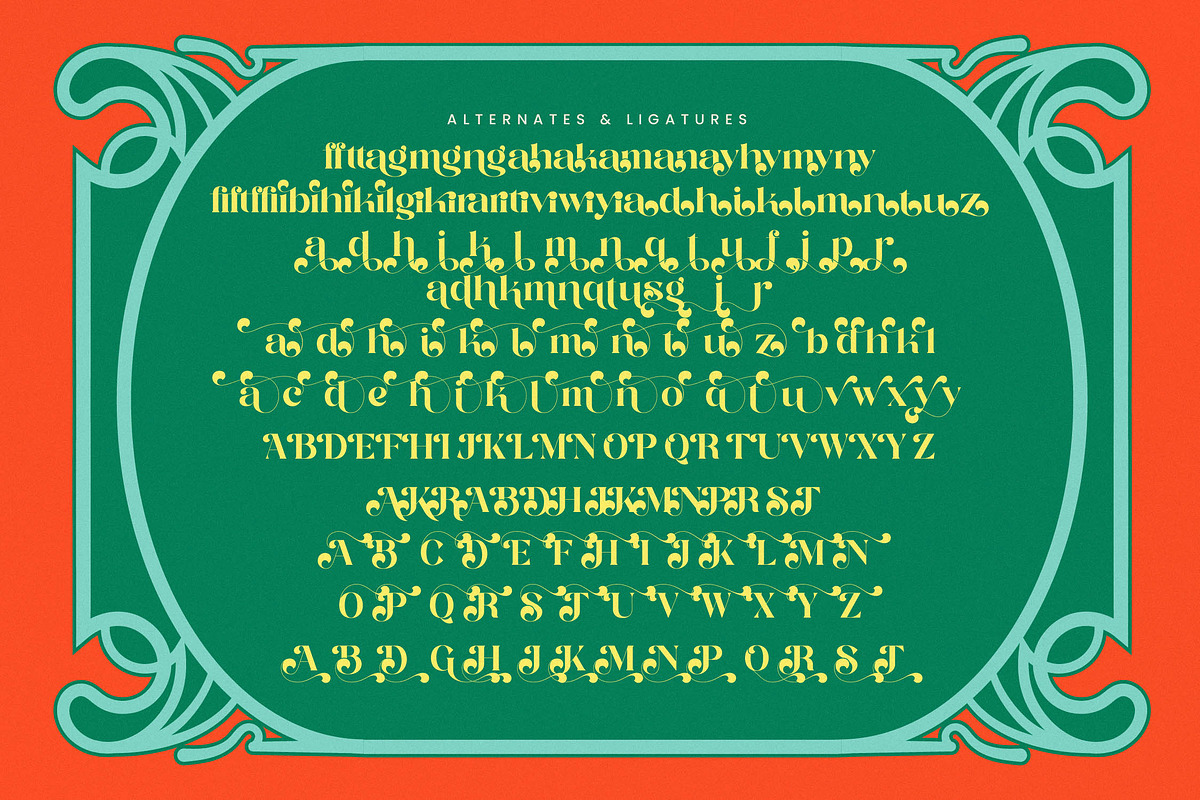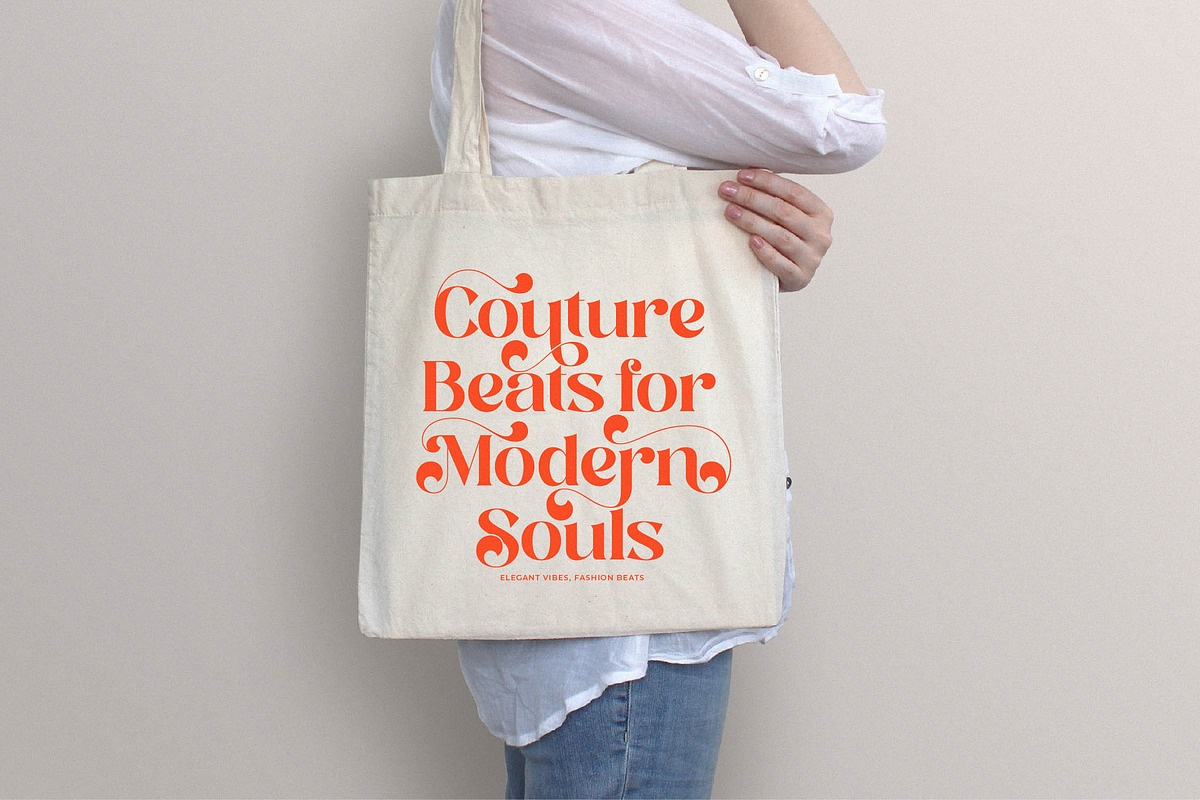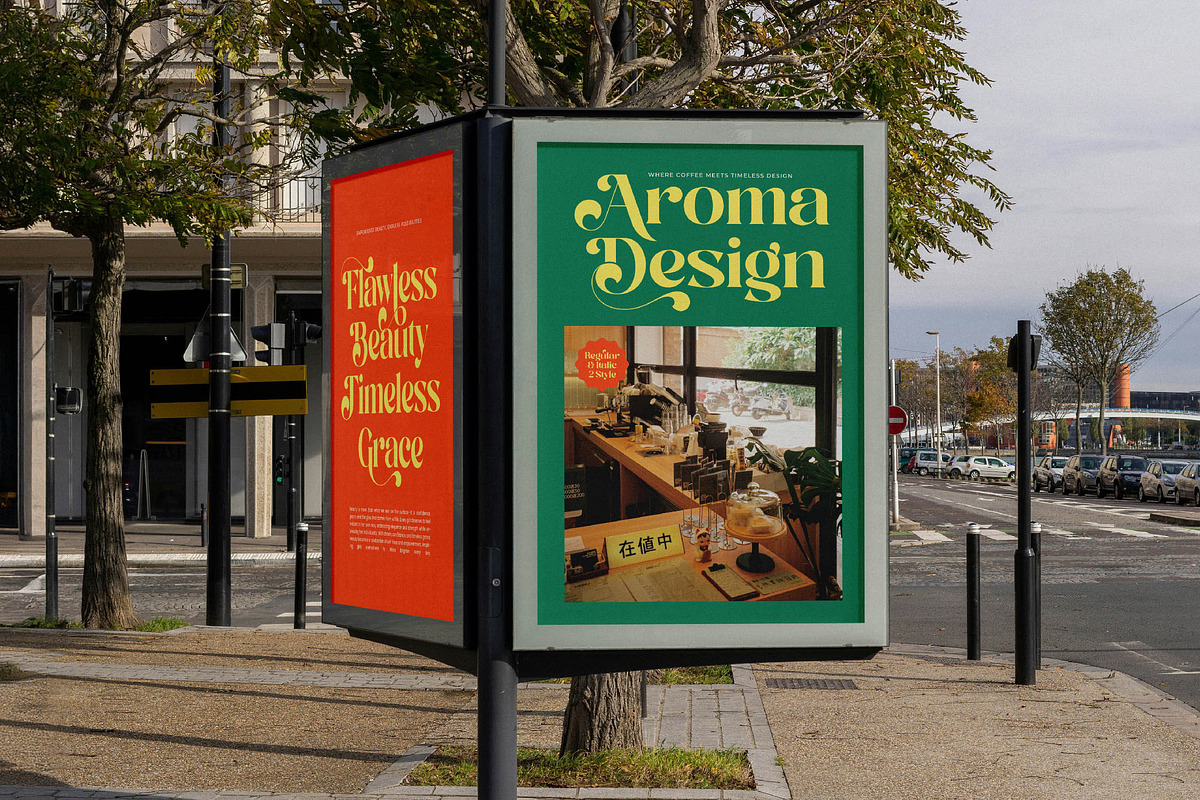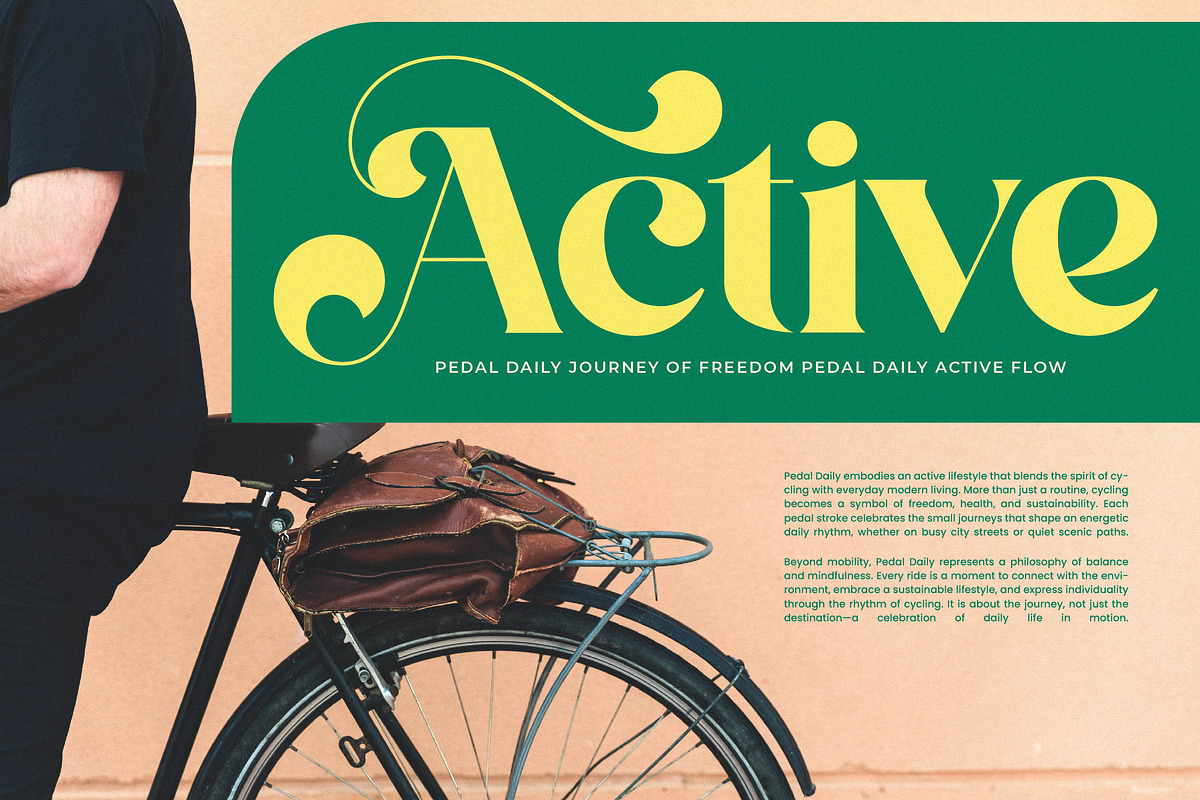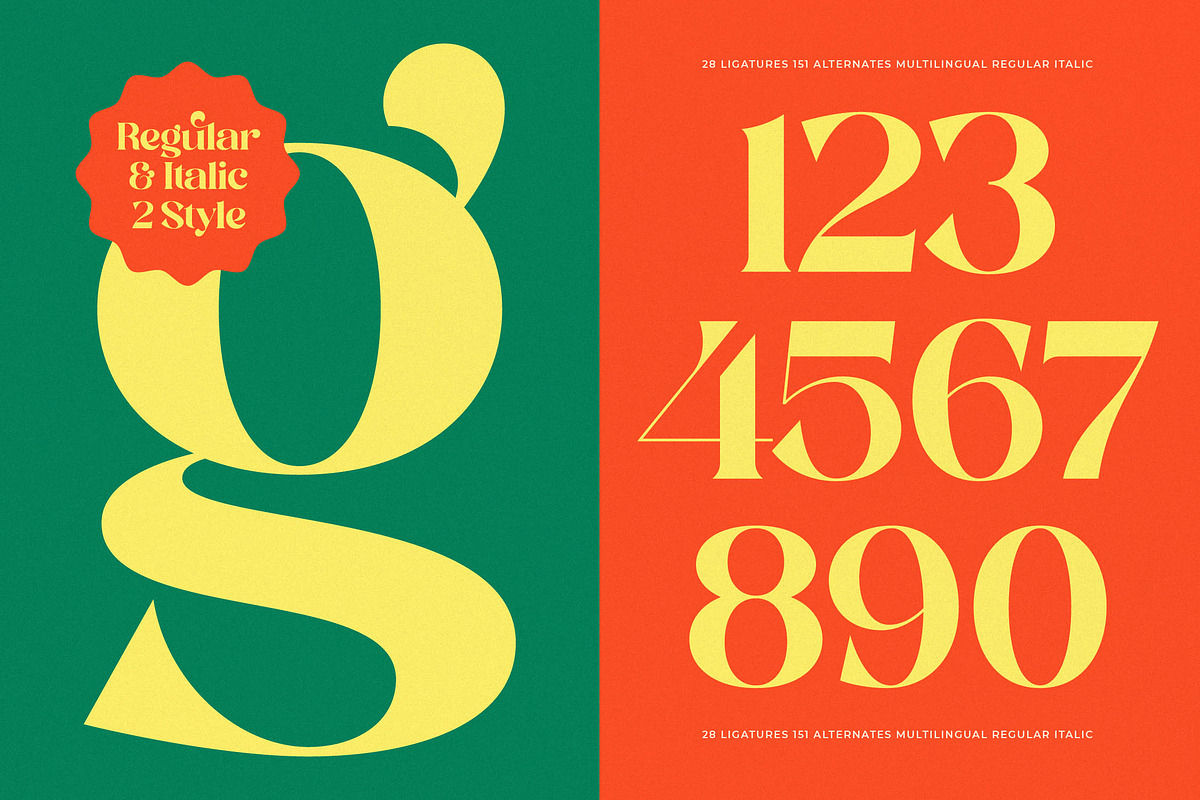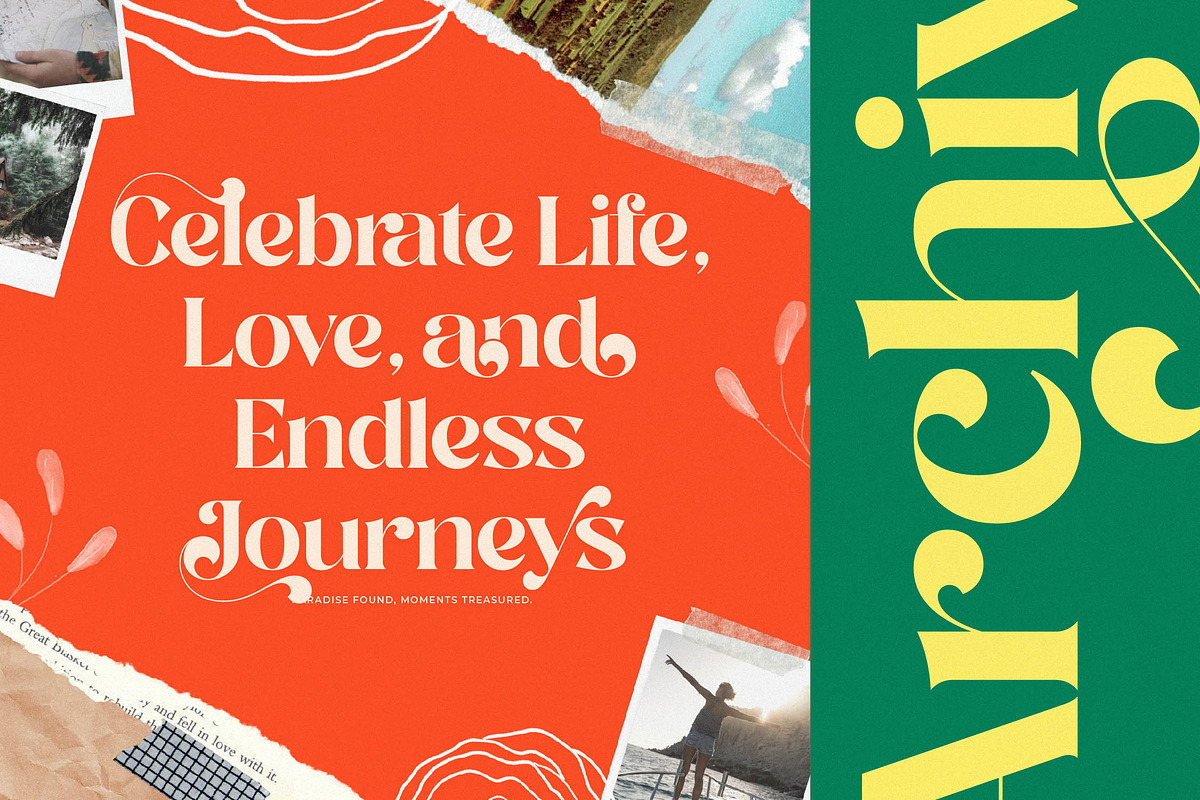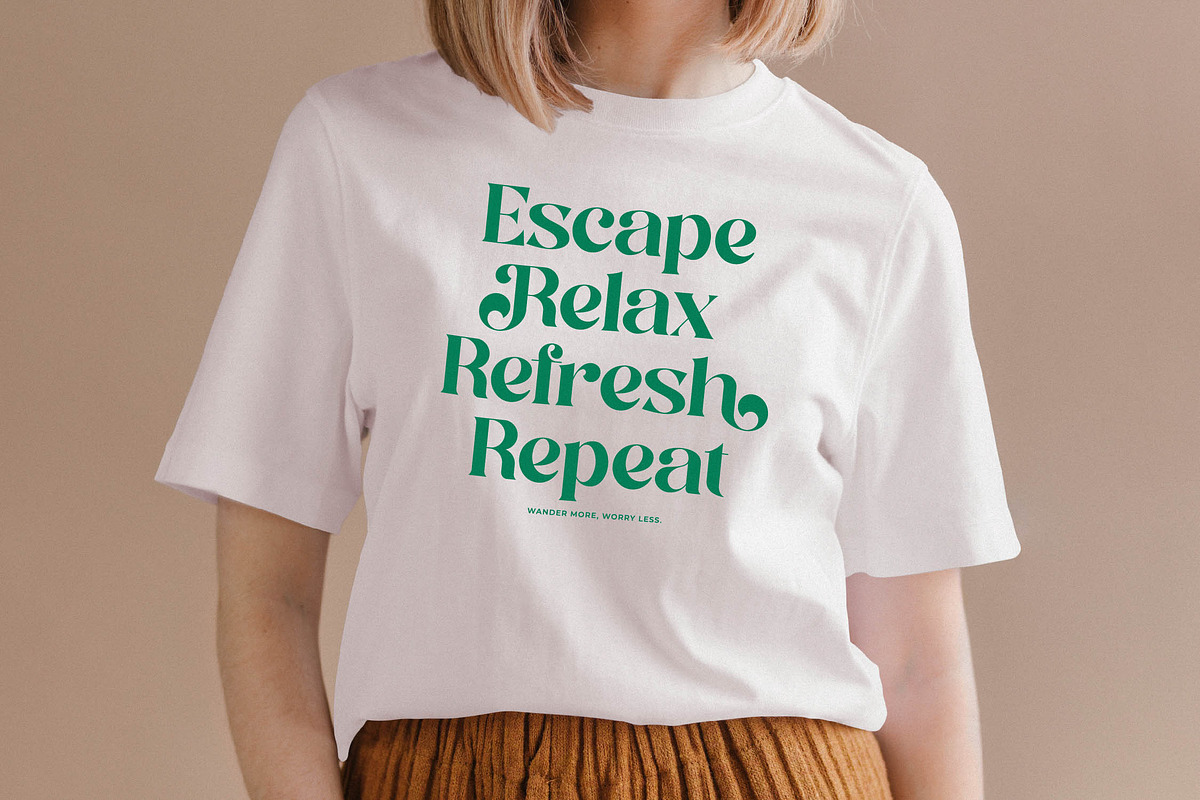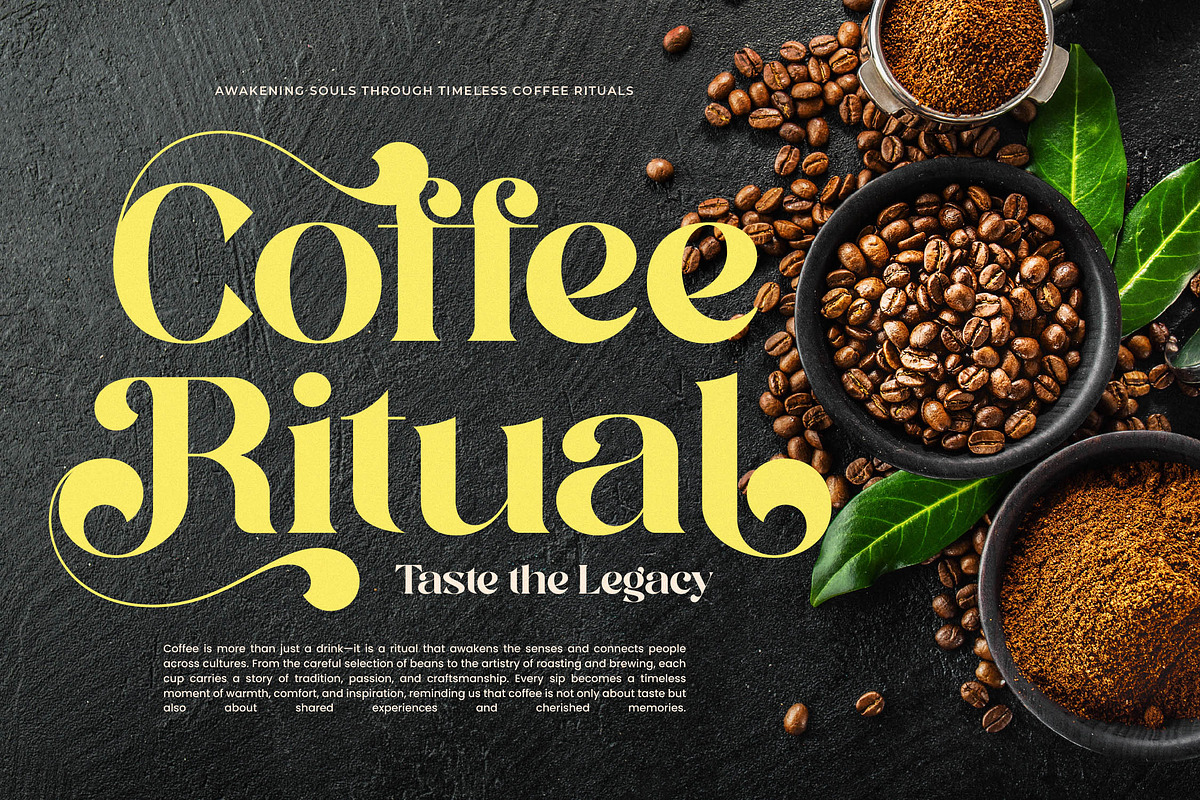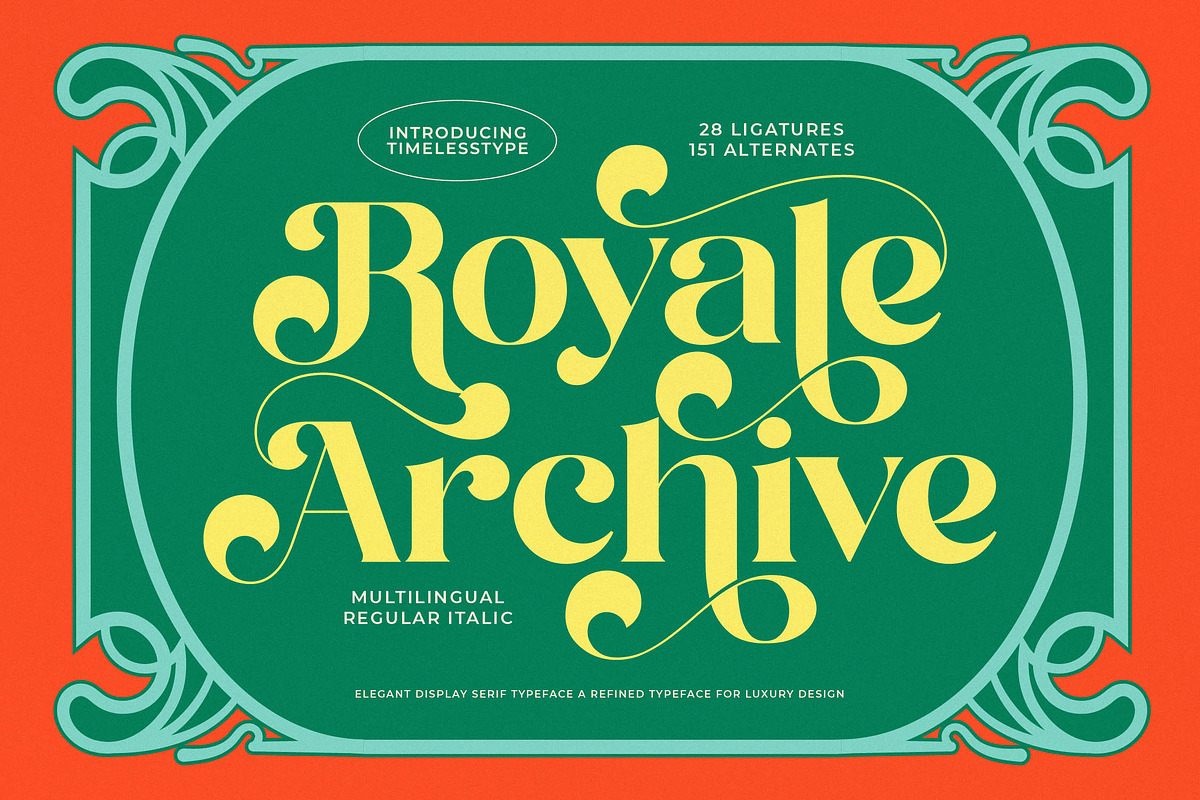
Royale Archive Luxury Display Serif
Step into a world of timeless elegance with Royale Archive, a typeface that captures the essence of refined sophistication. This font serves as a bridge between classic grace and contemporary flair, making it an essential tool for designers seeking a touch of prestige.
Inspired by the ornate beauty of Art Nouveau aesthetics and the regal archives of vintage typography, this face evokes a sense of history reimagined. Its flowing curves and sharp terminals reflect a meticulous attention to detail found in heritage hand-lettering and high-end editorial archives.
The modern serif display qualities of this font provide an unmatched luxury typography experience that demands attention. With its high-contrast serif design, it functions as a powerful editorial font that delivers a significant branding impact for any high-concept project.
Perfectly aligned with the current modern serif trend, this typeface stands out among other editorial display fonts by offering a unique depth. It represents the pinnacle of character-driven typography, catering to the industry's shift toward expressive and ornate visual storytelling.
This versatile typeface is an ideal choice for high-end logo design and comprehensive branding identity systems that require a distinctive voice. It excels in editorial layouts, luxury packaging, romantic wedding stationery, and the fast-paced world of fashion advertising.
This professional package includes a vast library of 28 ligatures and 151 alternates, allowing for endless customization through decorative swashes. The font is fully multilingual and supports a wide range of international characters, ensuring global accessibility for diverse design needs.
- Ligature 28 Alternate 151